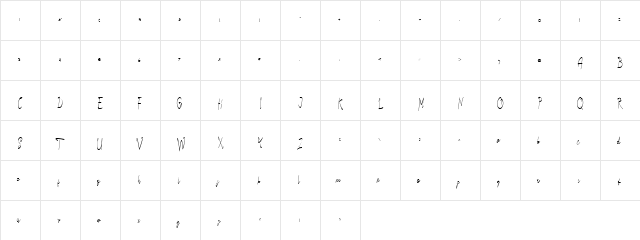
Whinter Regular
Design Context for Whinter Typeface
Whinter is a composed and adaptable typeface that performs quietly and consistently across a wide range of design contexts.